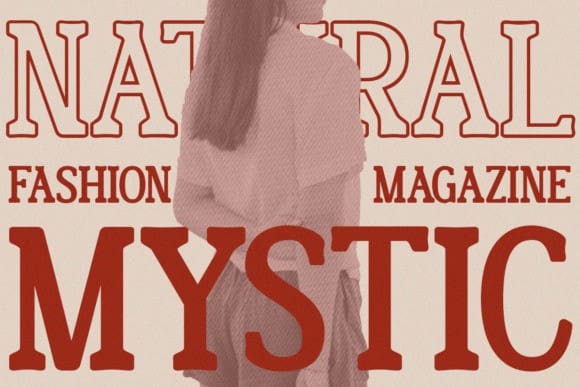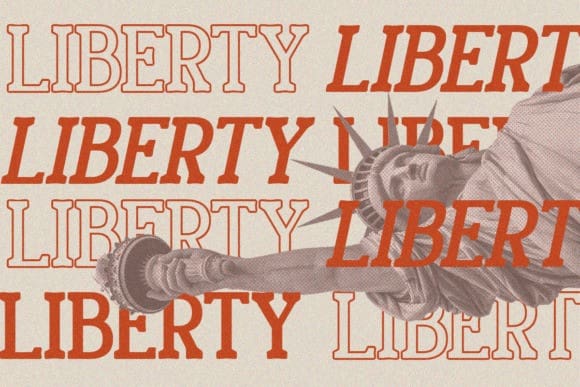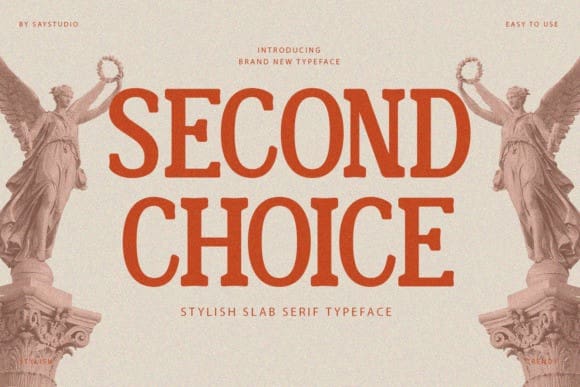
Second Choice Font
Second Choice Font is a bold and stylish slab serif typeface with a timeless, vintage appeal. Its strong, well-defined letterforms and elegant proportions make it perfect for branding, editorial design, posters, packaging, and more. Inspired by classic typography with a modern twist, this font brings sophistication and character to any project. Whether you’re crafting a luxurious brand identity or an eye-catching headline, Second Choice delivers confidence and charm.